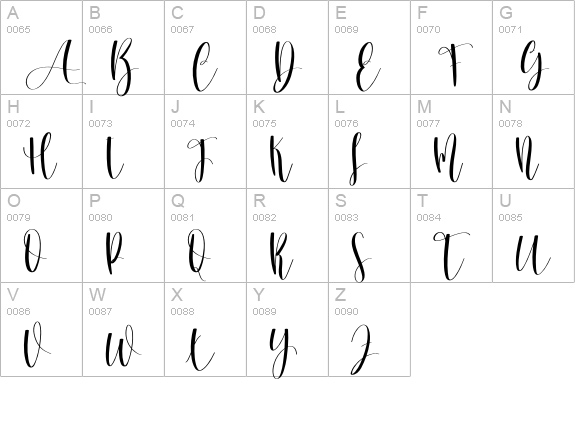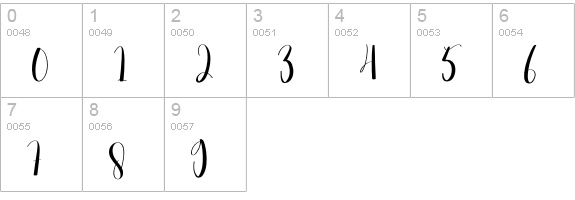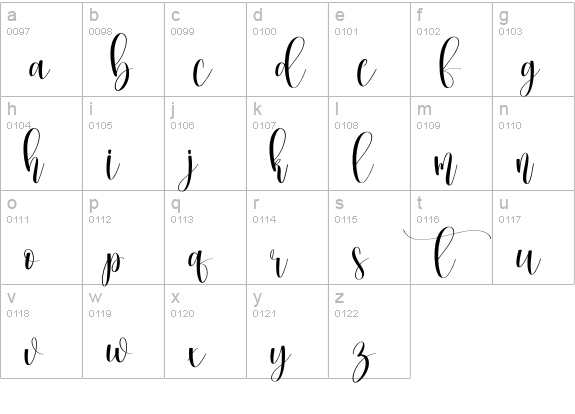
Lavender Christmas Font Details
Lavender Christmas is a free for personal use font in the Script > Handwritten category, designed by scratchones. It has been downloaded 12 times and is available for Windows, Mac and Linux.
Introducing Lavender Christmas Font, a whimsical and festive typeface perfect for adding a touch of holiday cheer to your designs. This font features elegant swirly letters with a hint of lavender essence, making it ideal for Christmas cards, invitations, posters, and more.